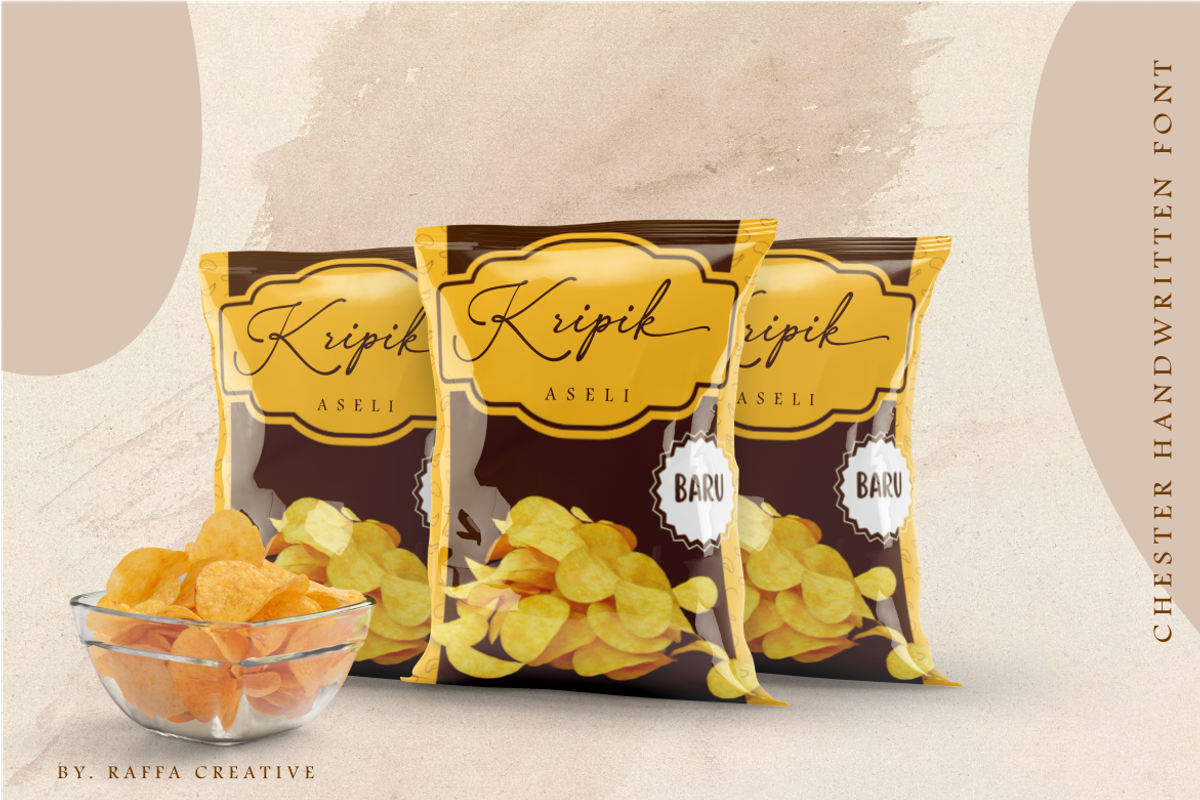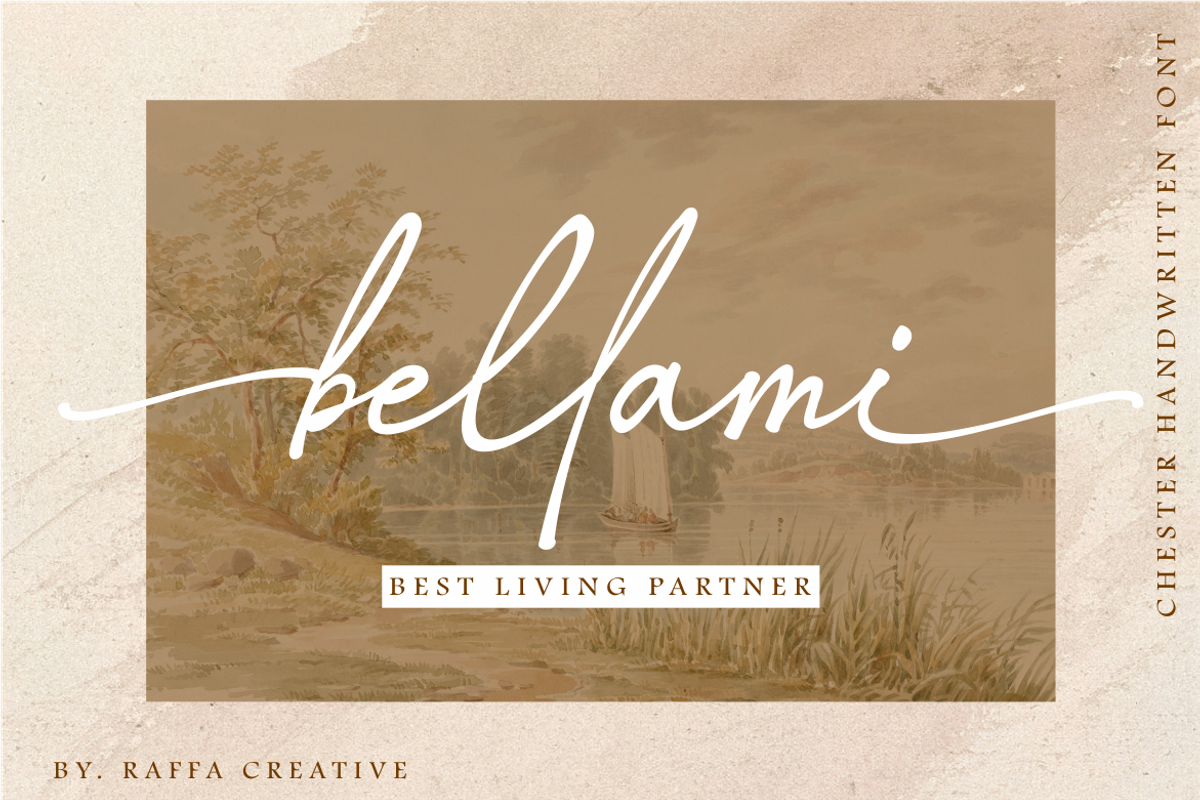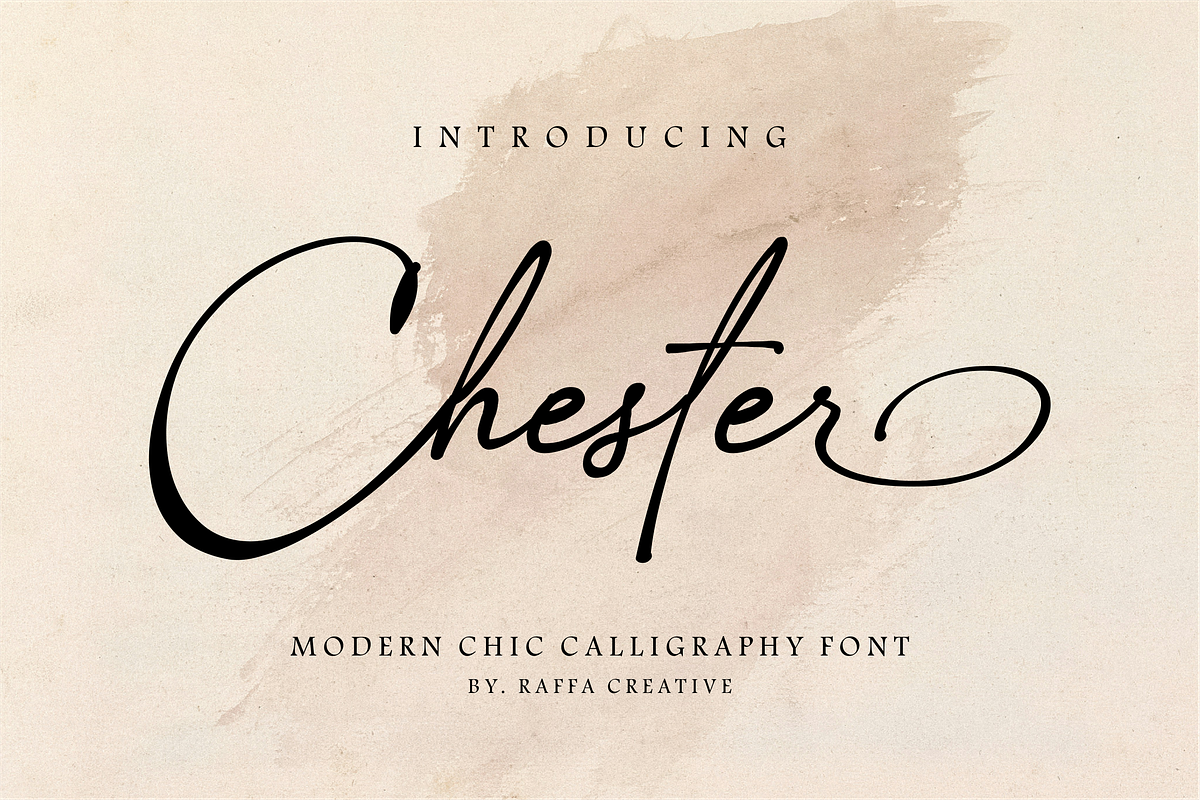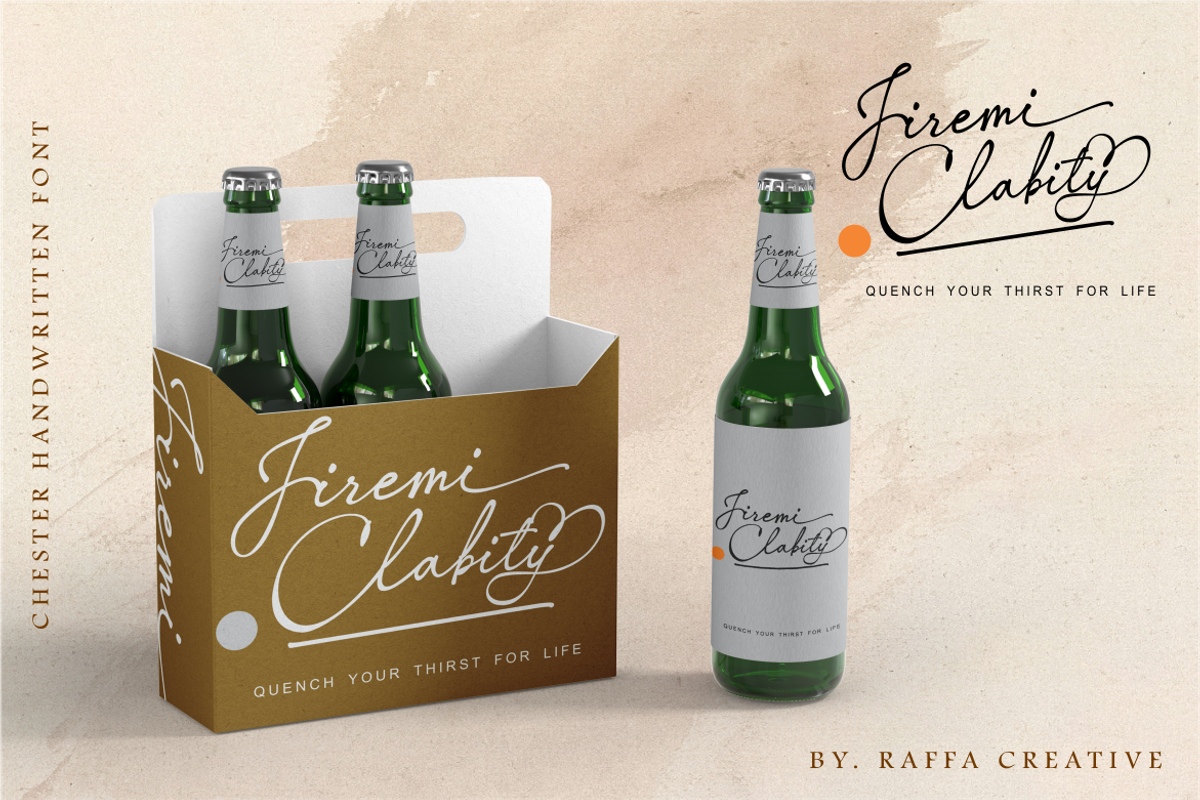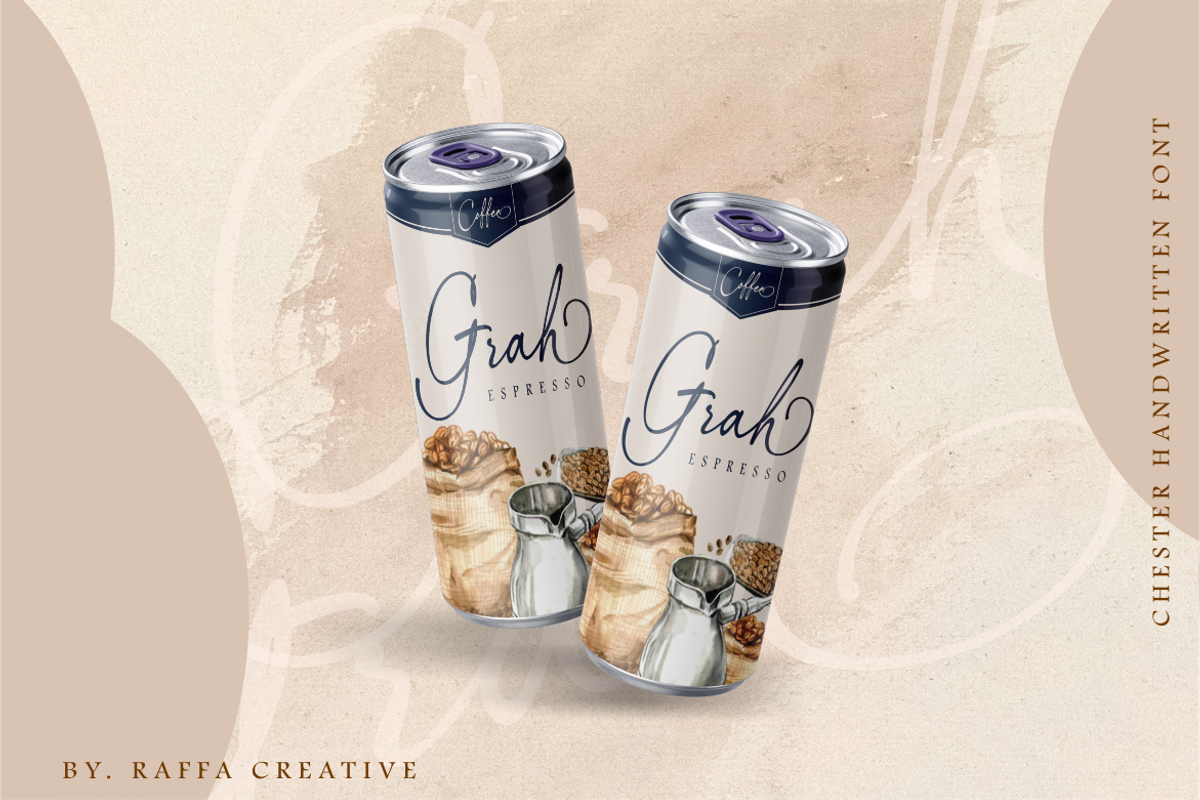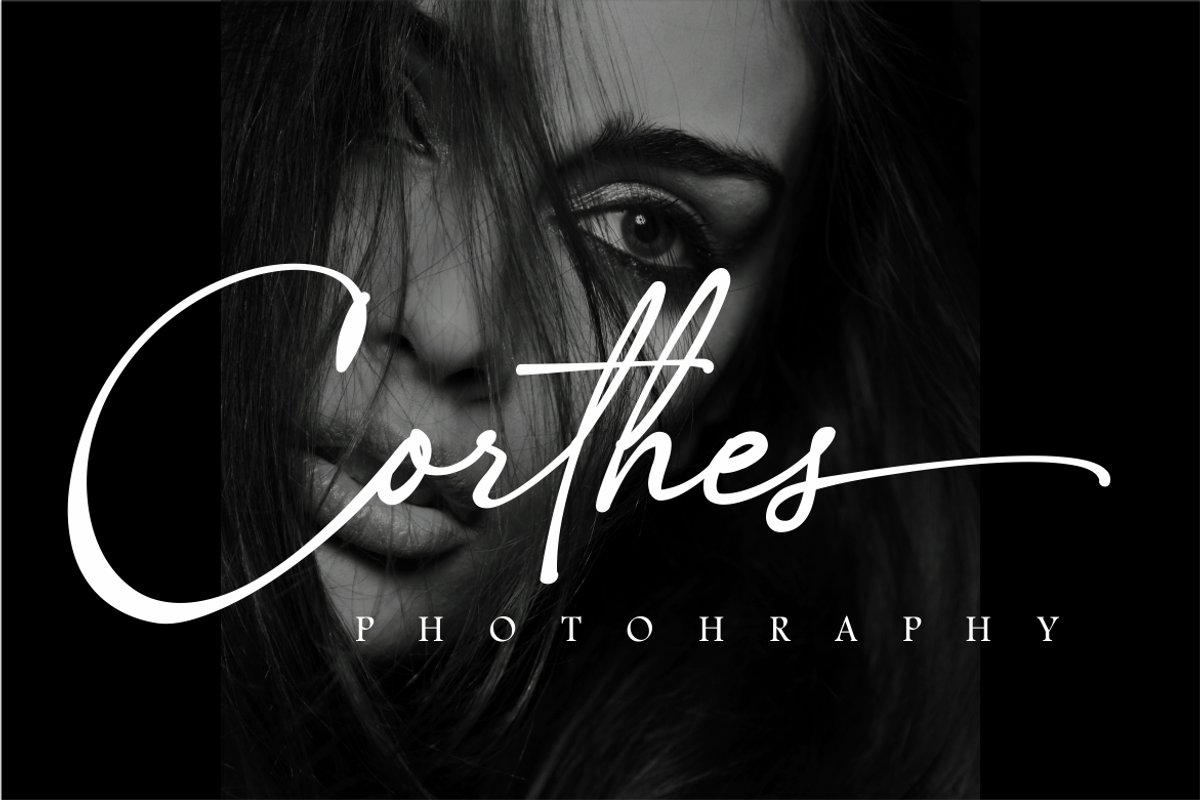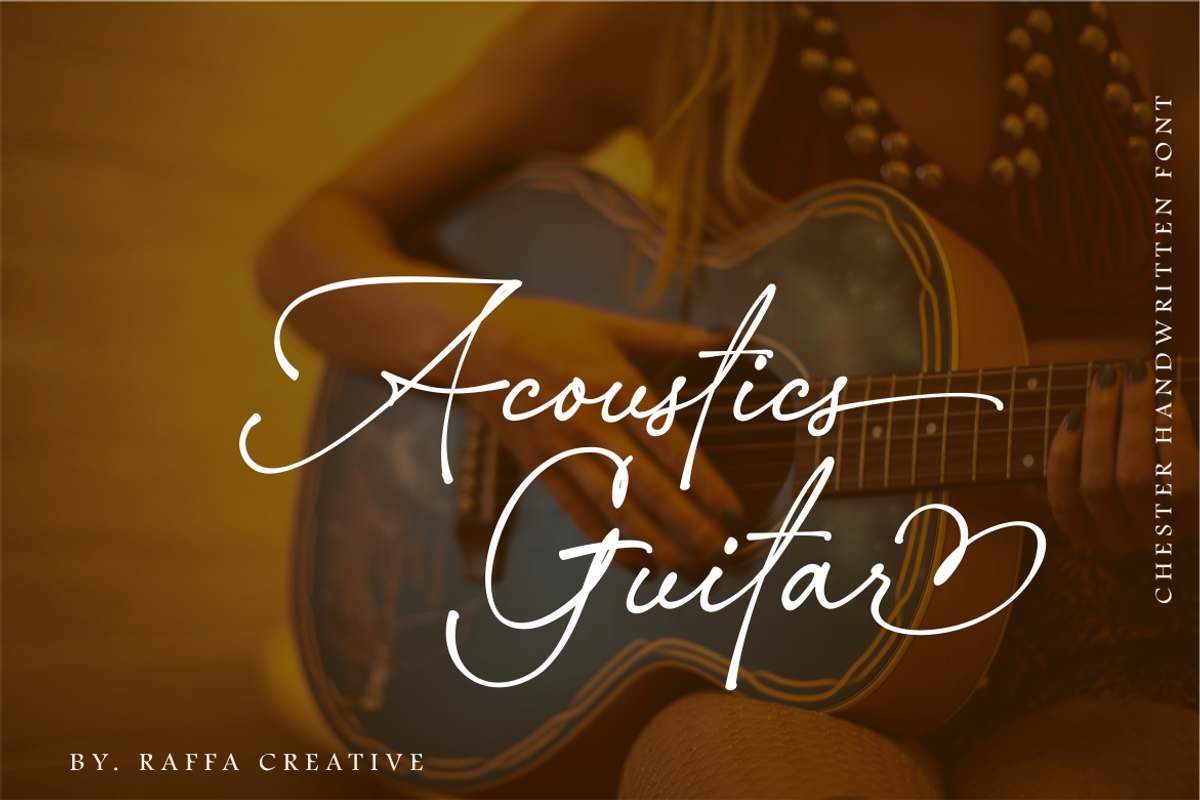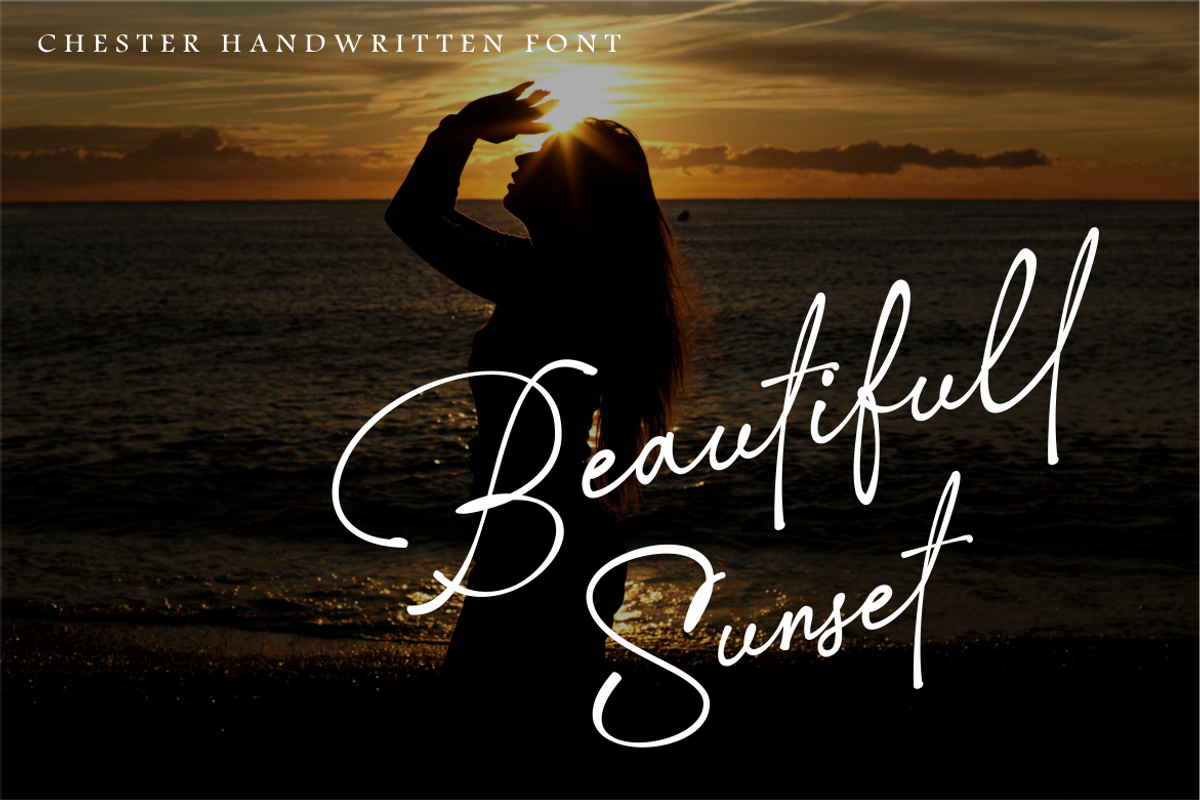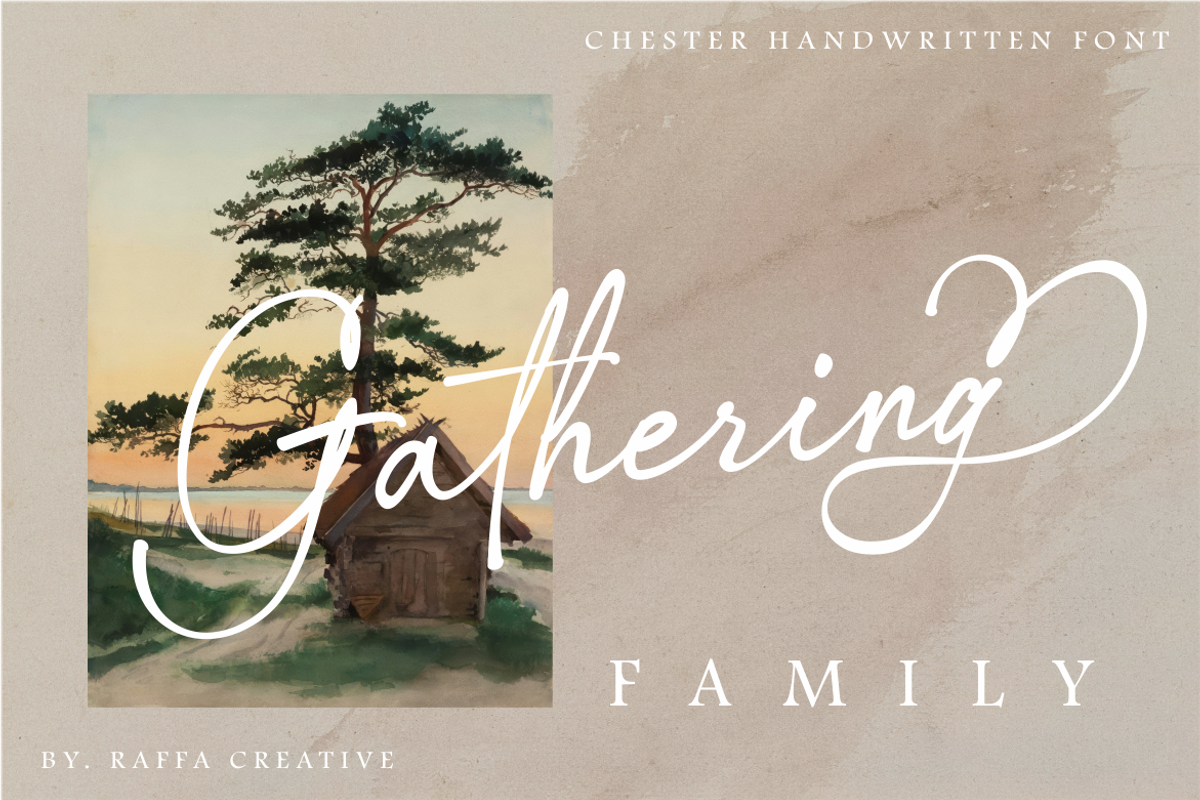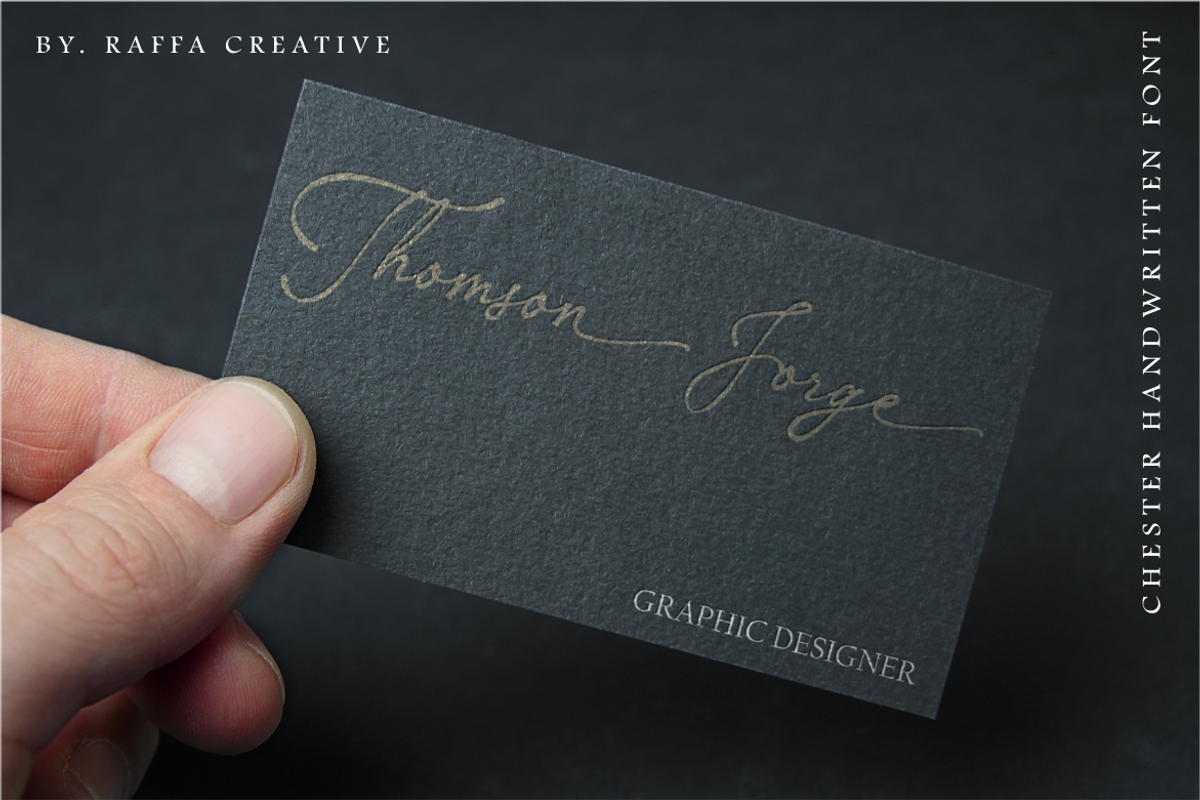
Chester Signature
Chester is a modern calligraphy font that blends elegance with a stylish, handwritten feel. Its graceful letterforms and flowing strokes make it perfect for upscale branding, wedding invitations, packaging, and personal signatures. With a chic and luxurious vibe, Chester adds a touch of sophistication to any design.